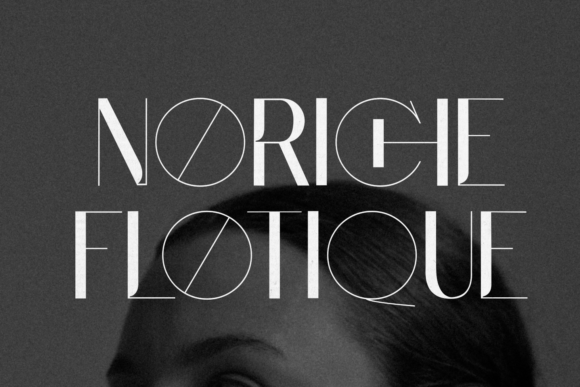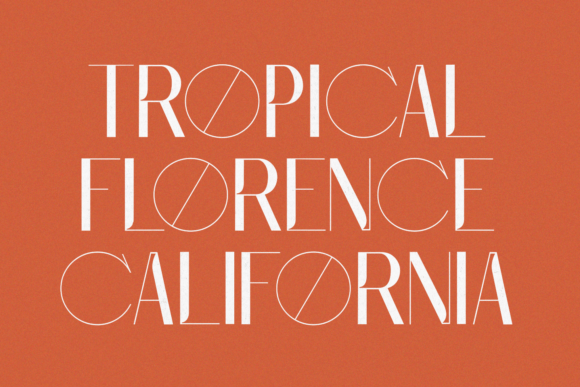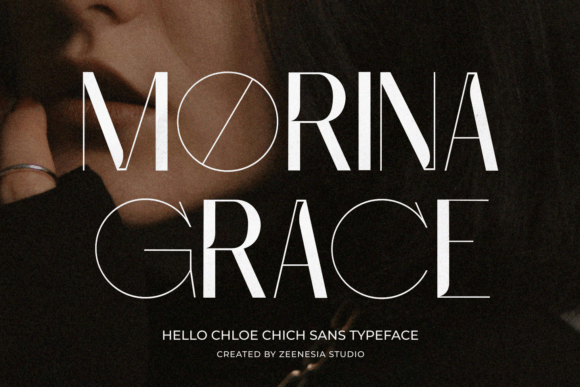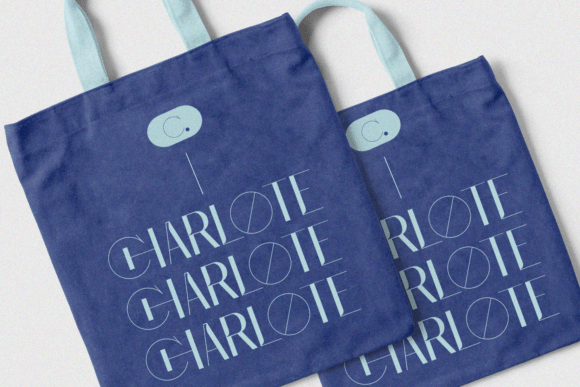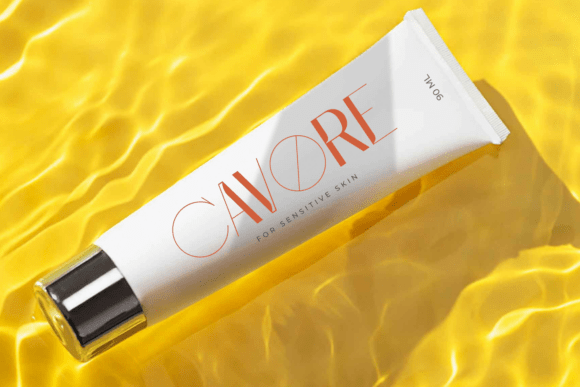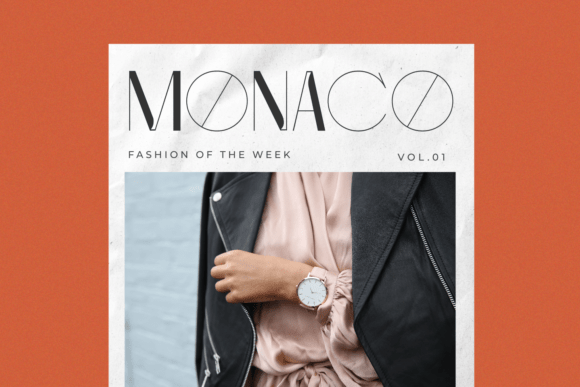
Hello Chloe Font: Elevate Your Designs with Elegance and Versatility
In the realm of typography, fonts play a pivotal role in conveying messages, expressing creativity, and capturing the essence of a brand or project. Among the myriad of fonts available, Hello Chloe stands out as a beacon of elegance and modernity. This refined sans serif font is not just a typeface; it’s an experience that offers a blend of sophistication and versatility, making it an indispensable tool for designers and crafters alike.
The Essence of Hello Chloe Font
Hello Chloe is characterized by its thin and modern design, which lends an air of minimalism while maintaining a distinctive character. This balance is crucial in today’s design landscape, where standing out without being overbearing is a delicate art. The font’s elegance is palpable in every stroke, making it suitable for projects that demand a touch of sophistication.
Versatility at Its Core: The Two Variations
One of the defining features of Hello Chloe is its offering of two variations: Regular and Italic. This dual option provides designers with the flexibility to use the font across a wide range of projects, from elegant branding and advertising to more dynamic editorial and digital content. The Regular version exudes calmness and stability, while the Italic variation adds a sense of movement and flair, allowing for a more nuanced expression of creativity.
Applications of Hello Chloe Font
The versatility of Hello Chloe makes it suitable for various design applications:
- Branding and Logotypes: Its elegant and modern design makes it perfect for creating memorable brand identities.
- Advertising and Marketing Materials: The font’s readability and aesthetic appeal ensure that your message stands out.
- Web Design: Hello Chloe’s clean and minimalist look is ideal for digital platforms, enhancing user experience.
- Print Media: From elegant brochures to stylish magazines, this font adds a touch of class to any printed material.
- Packaging: For product packaging that requires a blend of modernity and sophistication, Hello Chloe is an excellent choice.
Why Choose Hello Chloe?
In a market saturated with fonts, Hello Chloe offers several unique advantages:
- Elegance: Its refined design ensures your project looks upscale and professional.
- Versatility: With two variations, you can adapt your typography to suit the mood and requirements of your project.
- Legibility: The font’s clarity makes it easy to read, ensuring your message is communicated effectively.
- Modern Appeal: Hello Chloe’s contemporary design ensures your project feels current and engaging.
Hello Chloe font is more than just a typeface; it’s a design statement that combines elegance, versatility, and modernity. Whether you’re a professional designer or a crafter, this font offers the tools to elevate your projects, making them not only visually appealing but also memorable. With Hello Chloe, you can ensure that your designs exude a sense of sophistication and refinement, setting you apart in the world of design.
Incorporating Hello Chloe into your typography arsenal can significantly enhance your creative output, offering a fresh perspective on how to convey messages with elegance and impact. As the design landscape continues to evolve, having fonts like Hello Chloe that embody both style and substance is invaluable.